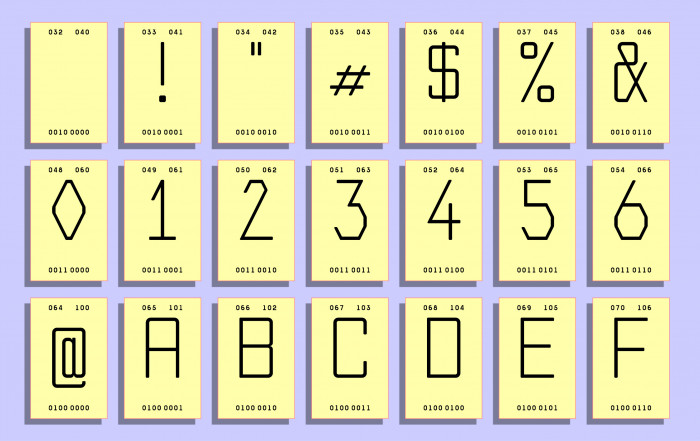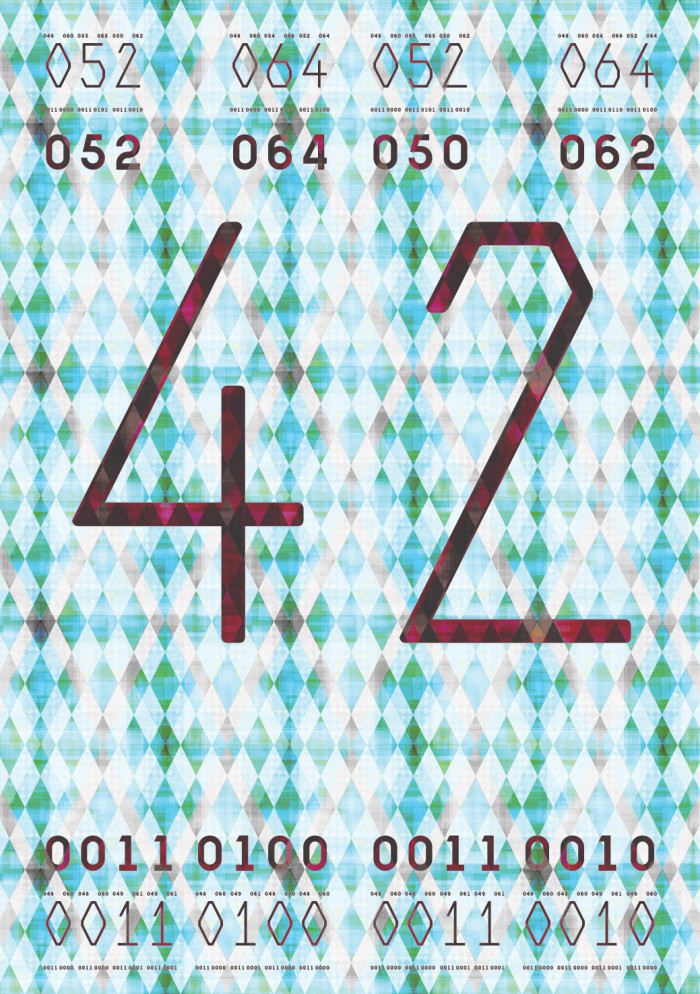
Very interesting concept, perfectly shown in the demo image. Additionally, the main font can work very well alone. Congratulations and good luck!
Wow, a beautiful font that gives an idea of computer vision of letters and numbers, and the letters and numbers themselves look interesting, in a futuristic font style reminiscent of OCR-A. Do you mind if I make a Cyrillic version without these numbers at the top and bottom?
Fun fact: while I was constructing the asterisk, I found myself staring at a Ж, and considered stopping there. However, ultimately I decided to chop the diagonals shorter.
These are the bricks (all custom except for the two full circles) used to construct the small numerals (including the alternate |4|).